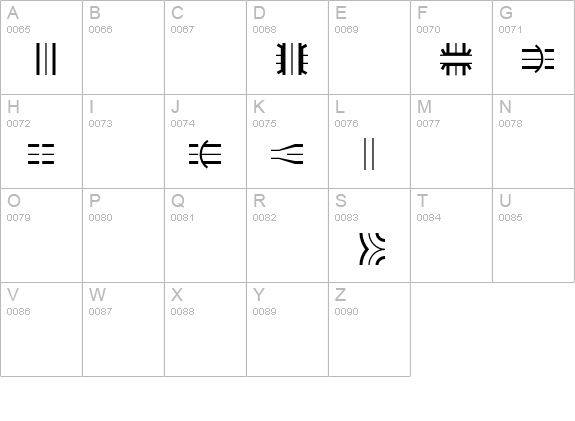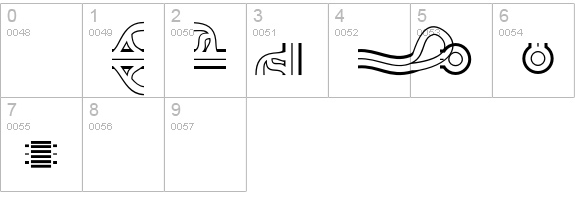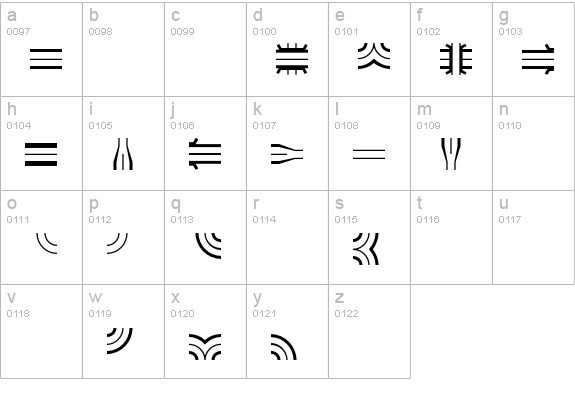
A44-streets Font Details
Introducing the captivating A44-Streets font, a versatile typeface designed to add a touch of urban edge to your projects. This modern and dynamic font features sleek lines and sharp angles, making it perfect for creating eye-catching designs that stand out from the crowd. With its bold and contemporary style, A44-Streets is sure to make a statement in any application, from branding and advertising to social media graphics and more. What's even better is that A44-Streets is available for free download at FontsMarket.com. Yes, you heard that right - this stunning font can be yours at no cost, allowing you to elevate your creative work without breaking the bank. So why wait? Download A44-Streets today and unleash your design potential with this fantastic typeface!